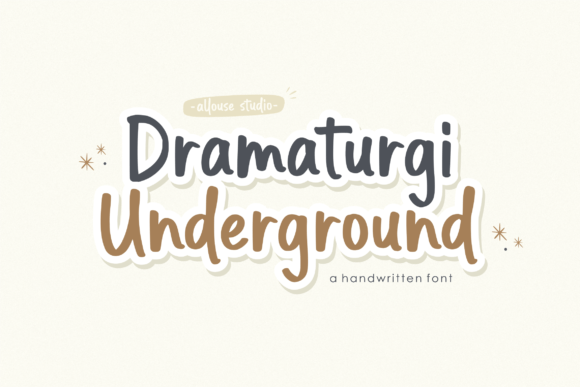
Dramaturgi Underground Font: Unleash Your Creativity with this Funky and Cool Handwritten Font
In the world of typography, fonts play a crucial role in conveying the tone and personality of a design. When it comes to creating playful and eye-catching designs, a funky and cool handwritten font can make all the difference. This is where Dramaturgi Underground comes in – a quirky and whimsical font that’s perfect for adding a touch of personality to your designs.
What is Dramaturgi Underground Font?
Dramaturgi Underground is a unique and creative handwritten font that’s designed to add a dash of fun and playfulness to your designs. Its quirky and whimsical vibe makes it suitable for a wide range of designs, from posters and flyers to social media graphics and branding materials.
Key Features of Dramaturgi Underground Font
- Funky and Cool Design: Dramaturgi Underground boasts a funky and cool design that’s sure to grab attention. Its handwritten style gives it a personal and informal feel that’s perfect for creating playful designs.
- Quirky and Whimsical Vibe: The font’s quirky and whimsical vibe makes it suitable for a wide range of designs, from children’s party invitations to social media graphics and more.
- Handwritten Style: The font’s handwritten style gives it a personal and informal feel that’s perfect for creating designs that need a touch of personality.
- Easy to Read: Despite its playful design, Dramaturgi Underground is easy to read, making it perfect for use in body text as well as headlines.
Uses of Dramaturgi Underground Font
Dramaturgi Underground is a versatile font that can be used in a wide range of designs, including:
- Posters and Flyers: The font’s bold and playful design makes it perfect for use in posters and flyers.
- Social Media Graphics: Dramaturgi Underground is perfect for creating eye-catching social media graphics that stand out from the crowd.
- Branding Materials: The font’s unique and creative design makes it suitable for use in branding materials, such as logos and business cards.
- Children’s Party Invitations: The font’s quirky and whimsical vibe makes it perfect for use in children’s party invitations.
Benefits of Using Dramaturgi Underground Font
Using Dramaturgi Underground in your designs comes with a range of benefits, including:
- Unique and Creative Designs: The font’s unique and creative design helps to create designs that stand out from the crowd.
- Playful and Eye-Catching: Dramaturgi Underground’s playful and eye-catching design is perfect for grabbing attention and engaging audiences.
- Versatile: Dramaturgi Underground is a versatile font that can be used in a wide range of designs.
Tips for Using Dramaturgi Underground Font
Here are some tips for using Dramaturgi Underground effectively:
- Use it Sparingly: Use Dramaturgi Underground sparingly to avoid overwhelming your design.
- Pair it with Other Fonts: Pair Dramaturgi Underground with other fonts to create visual interest and contrast.
- Adjust the Size and Color: Adjust the size and color of the font to suit your design needs.
- Experiment with Different Styles: Experiment with different styles, such as bold and italic, to add emphasis and create visual interest.
Dramaturgi Underground is a funky and cool handwritten font that’s perfect for adding a touch of personality to your designs. Its quirky and whimsical vibe makes it suitable for a wide range of playful designs, from posters and flyers to social media graphics and branding materials. With its easy-to-read design and versatile uses, Dramaturgi Underground is a great addition to any designer’s font collection.